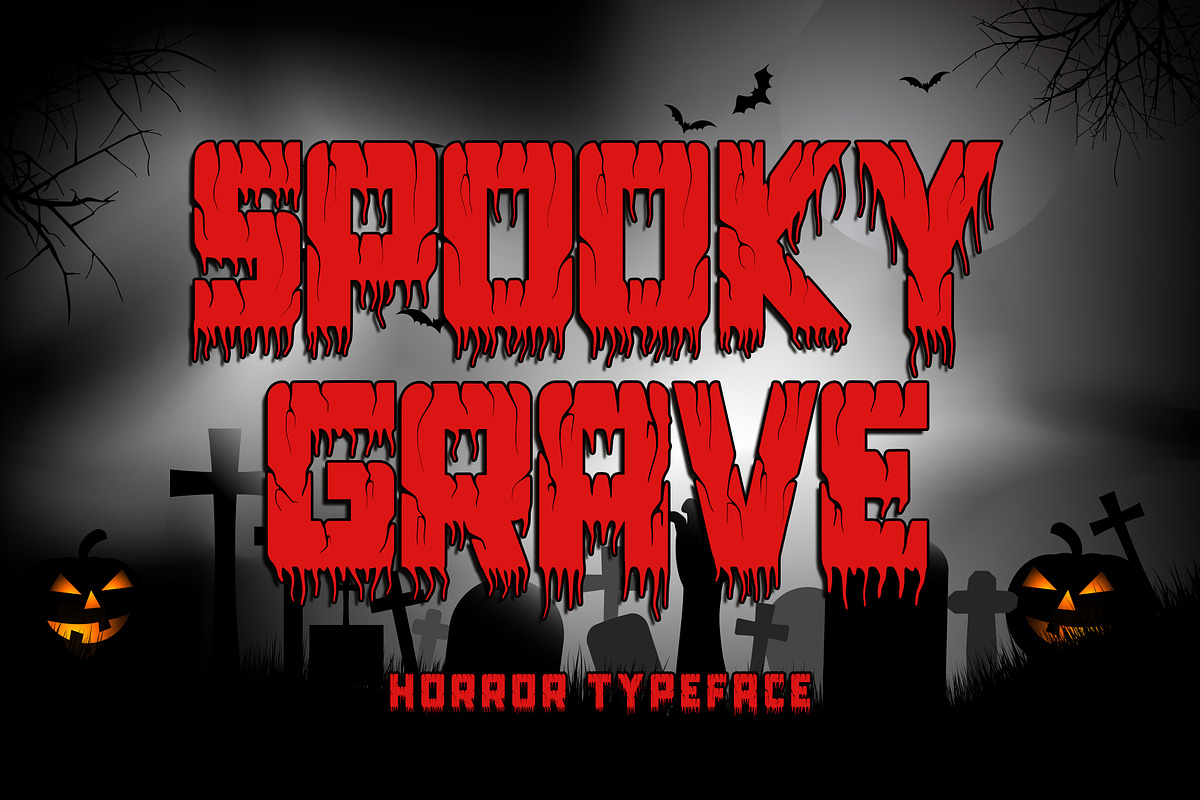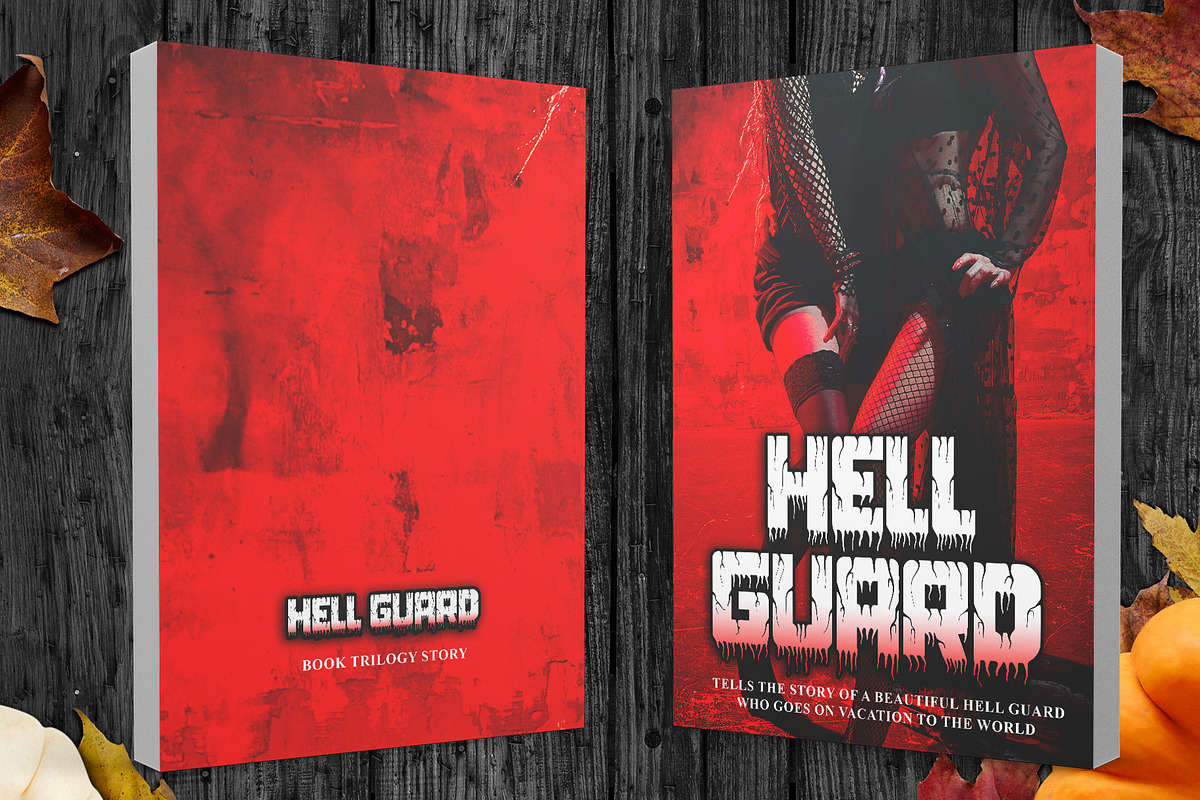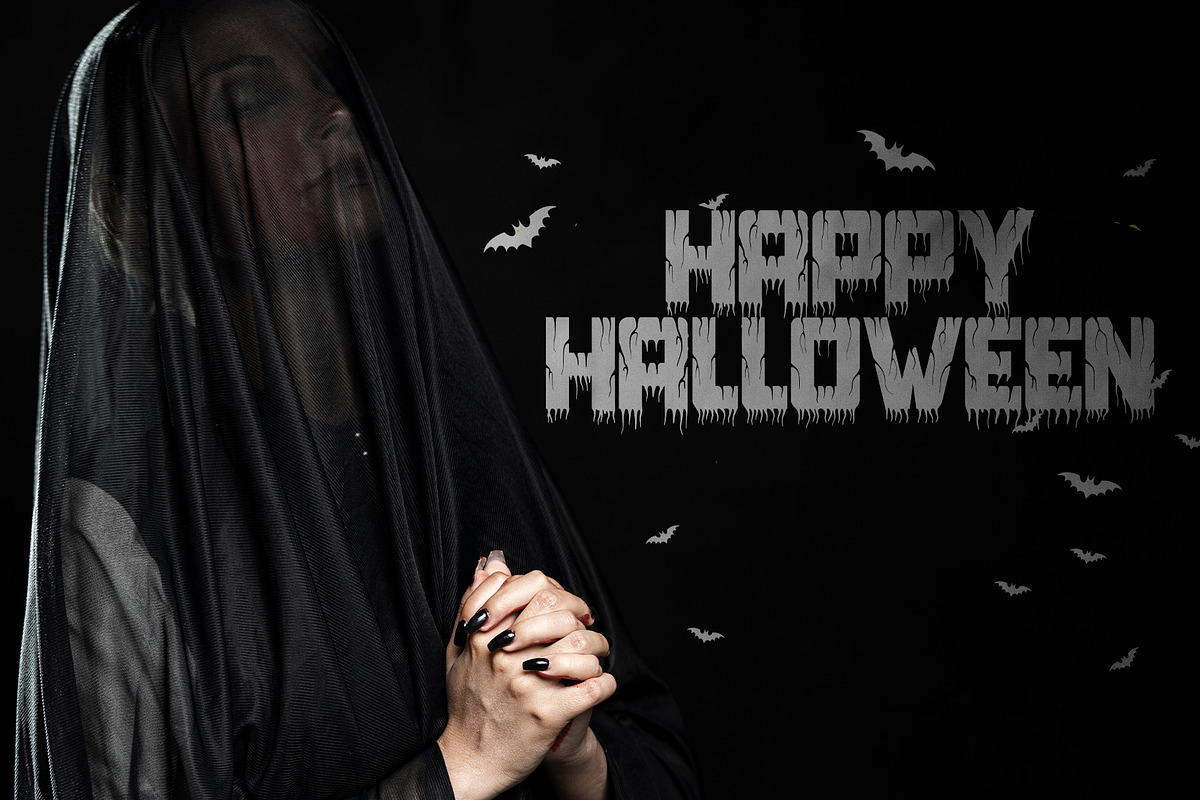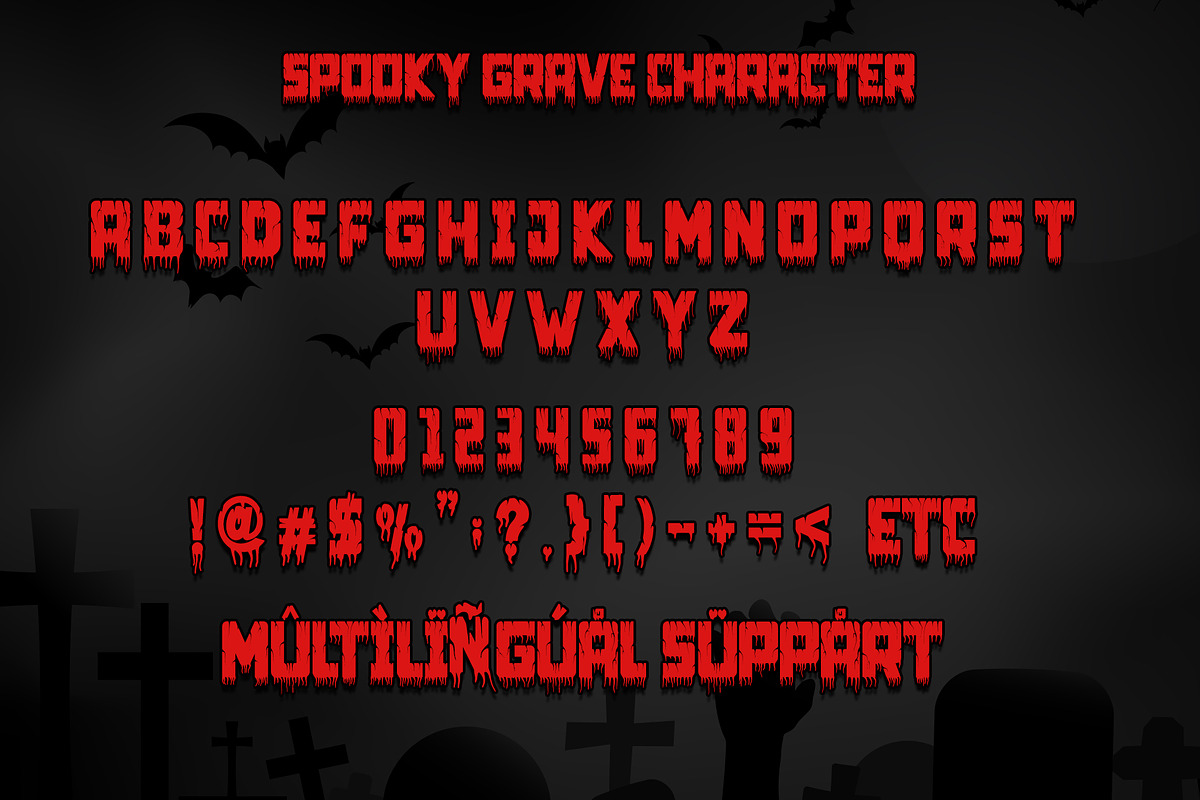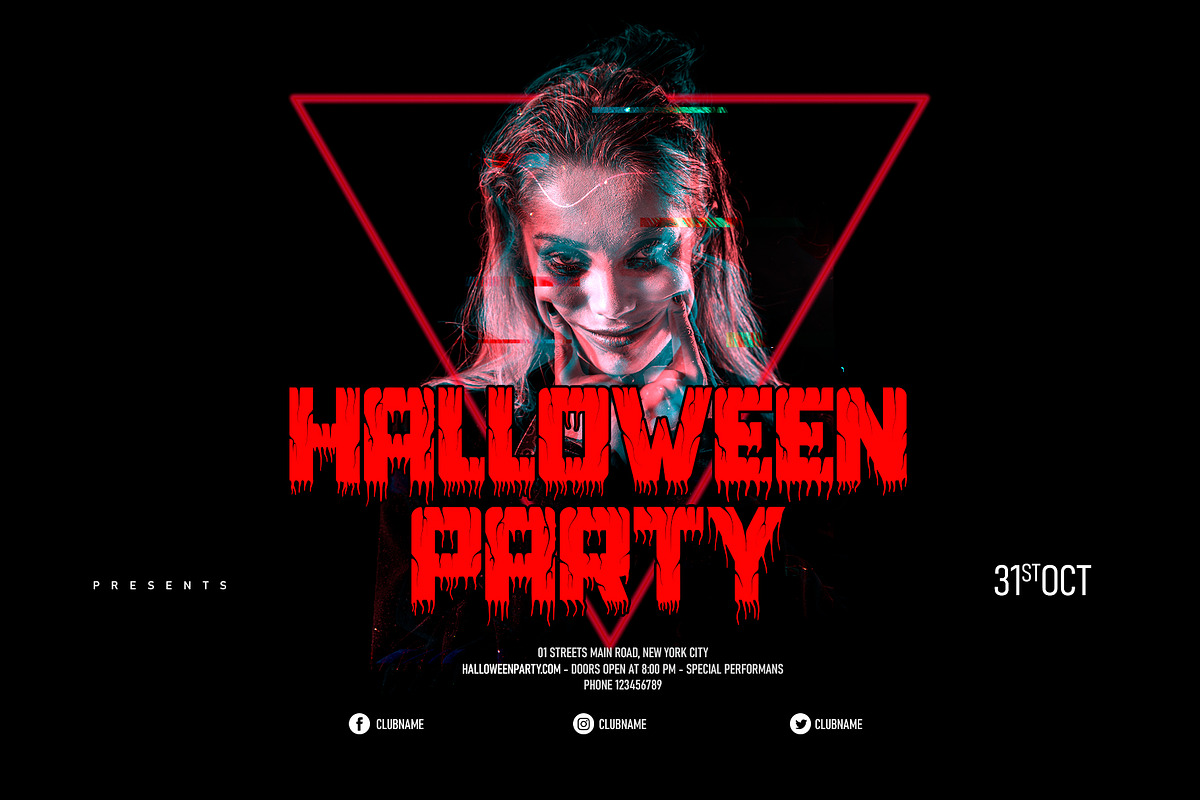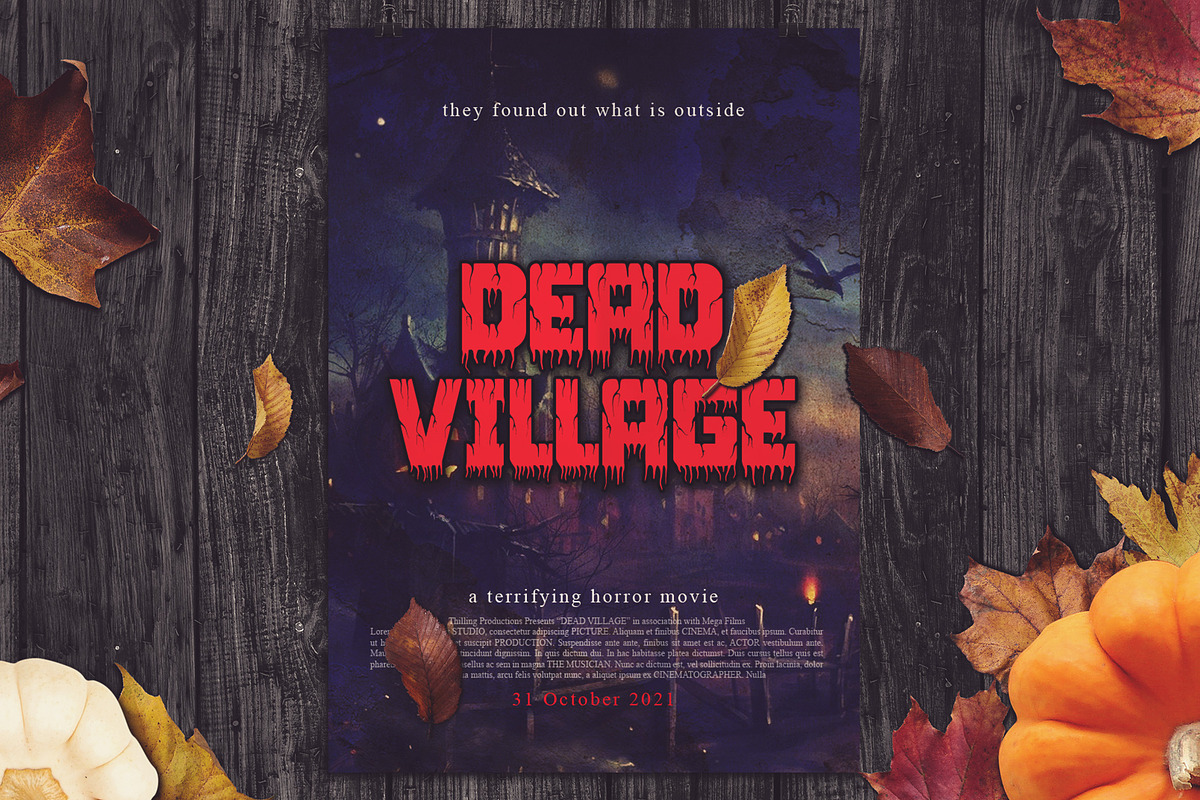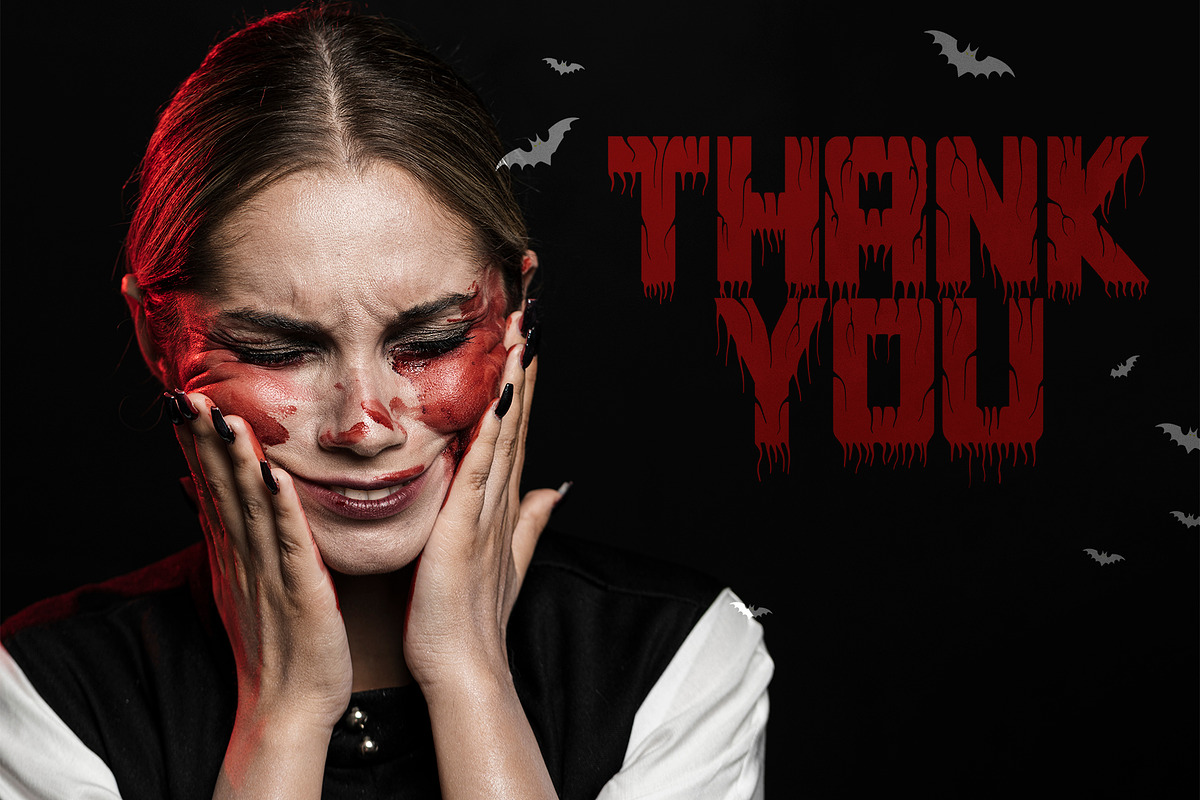
Spooky Grave
Spooky Grave is a chunky lettered and spooky display font. Add this font to your favorite Halloween-themed ideas: invitations, banner, advertising, logo, movie, poster, novel, app game scary or horror, and notice how it makes them come alive! No matter the topic, this font will be an incredible asset to your fonts’ library, as it has the potential to elevate any creation. This font is PUA encoded which means you can access all of the glyphs.
- Support multilingual; ä ö ü Ä Ö Ü ß ¿ ¡
- lowercase and uppercase letters